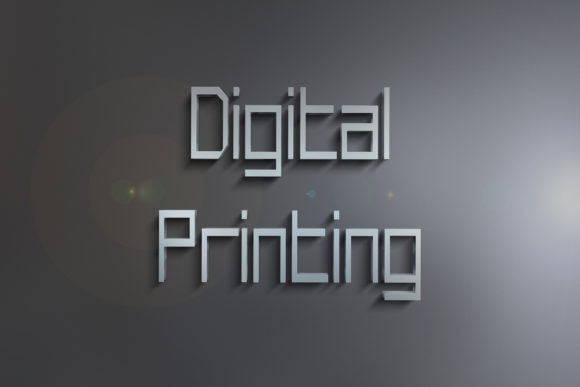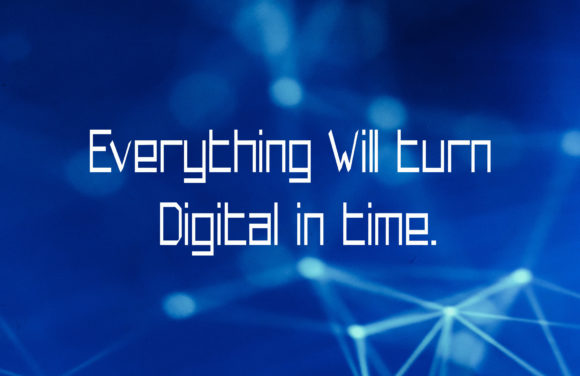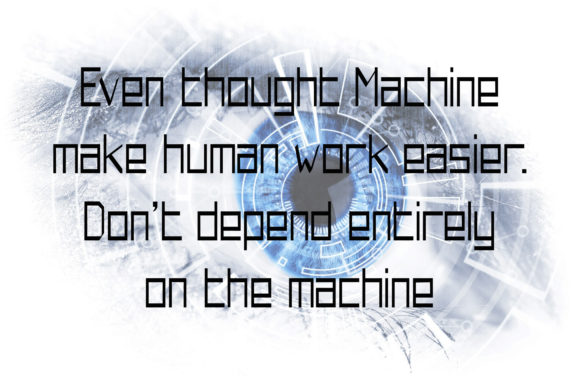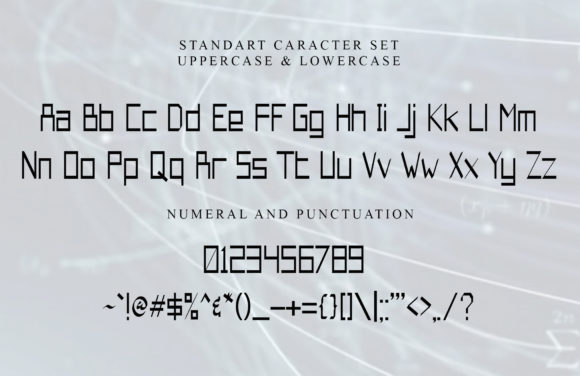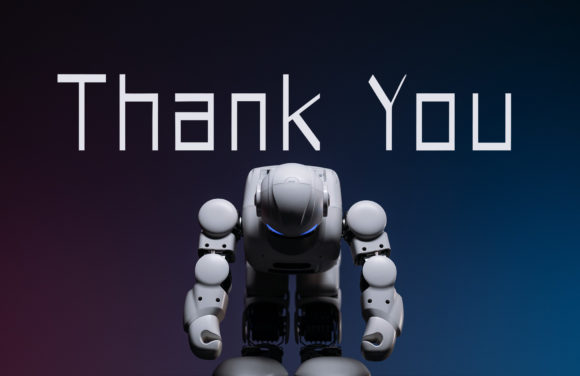
The Digital Font: A Cool, Squared, and Robotic Display Font
The Digital font is a stunning display font that exudes a robotic, squared aesthetic. Its unique design makes it perfect for posters, flyers, and prints that require a bold, futuristic look. In this article, we’ll dive into the world of Digital, exploring its features, and endless possibilities.
- ✨ Unique and eye-catching design: The Digital font is unlike any other font I’ve seen. Its squared, robotic look is sure to grab attention.
- ✅ Highly versatile: This font can be used for a wide range of design projects, from posters and flyers to logos and branding.
- 💻 Easy to read: Despite its futuristic design, the Digital font is surprisingly easy to read, even in smaller sizes.
While the Digital font is amazing, it’s not perfect. Here are a few things to keep in mind:
- ⚠️ Limited use in body text: Due to its bold, display nature, the Digital font might not be the best choice for body text. It’s best used for headings and titles.
- 🤔 Some letters may appear similar: In certain sizes or styles, some letters may appear similar, which can make reading more difficult.
The Designer Inspiration
The Digital font was inspired by the early days of digital design. Its creator, a renowned type designer, wanted to create a font that embodied the spirit of innovation and technology. The result is a font that’s both futuristic and timeless.
Q: What is the Digital font best used for?
A: The Digital font is best used for display purposes, such as posters, flyers, and titles. Its bold, futuristic design makes it perfect for grabbing attention.
Q: Is the Digital font available in different styles?
A: Yes, the Digital font comes in various styles, including regular, bold, and italic. You can experiment with different styles to add more personality to your design.